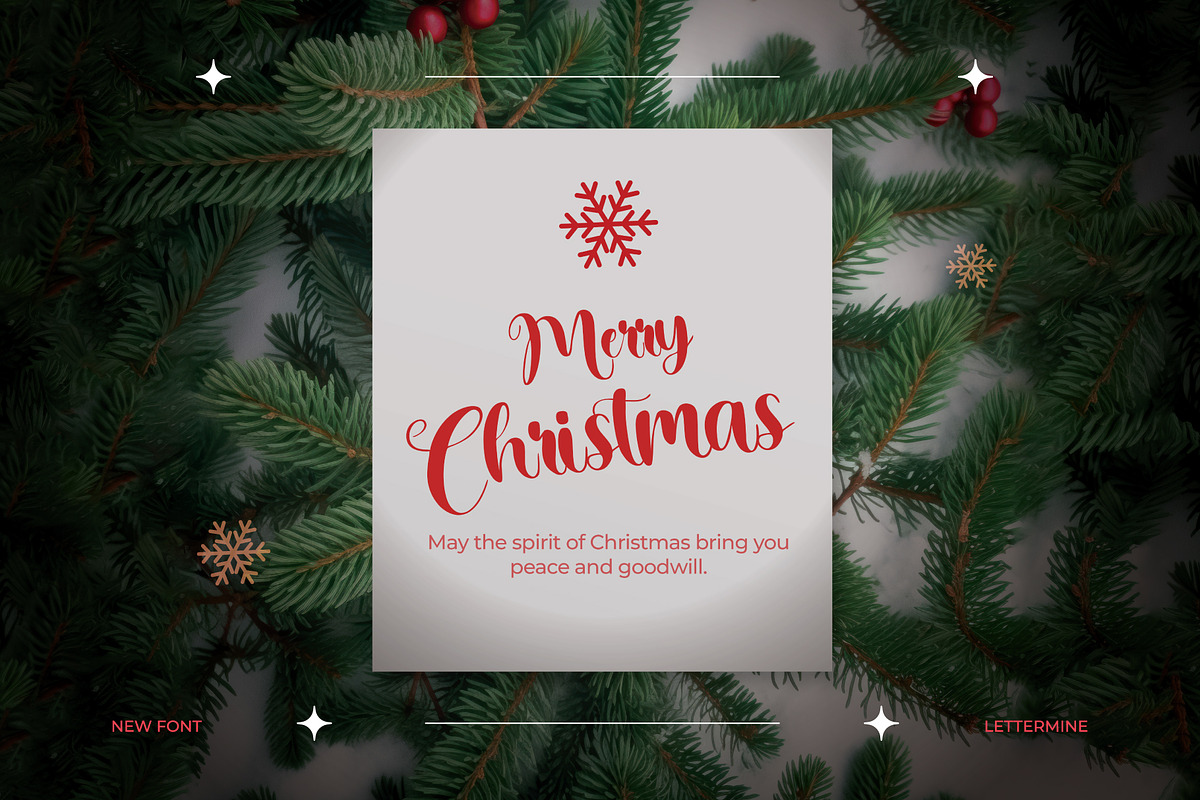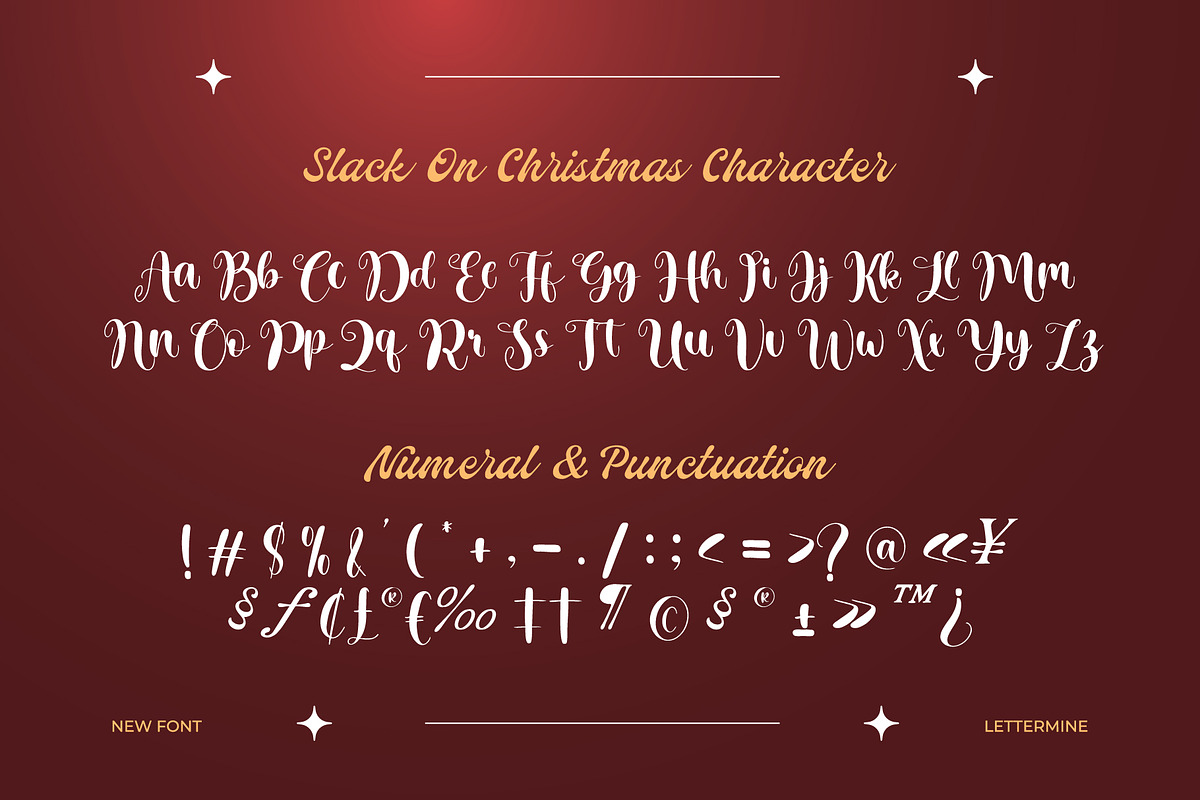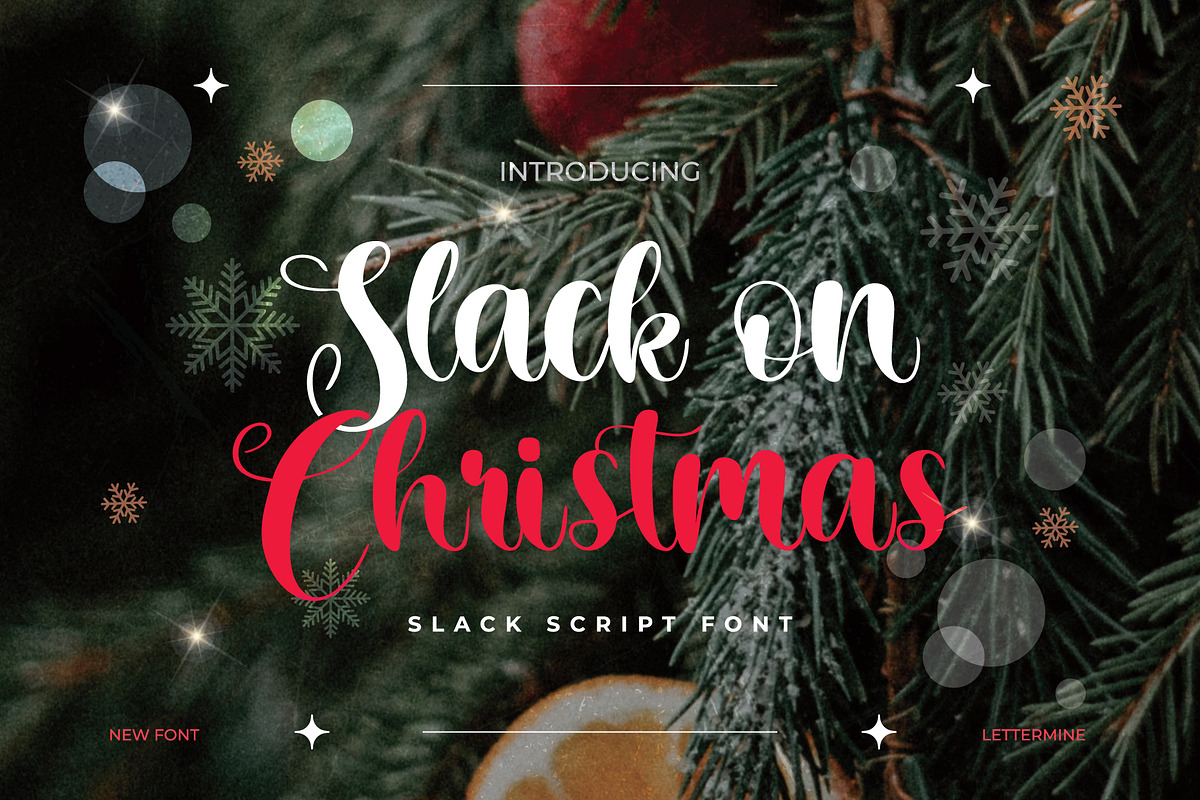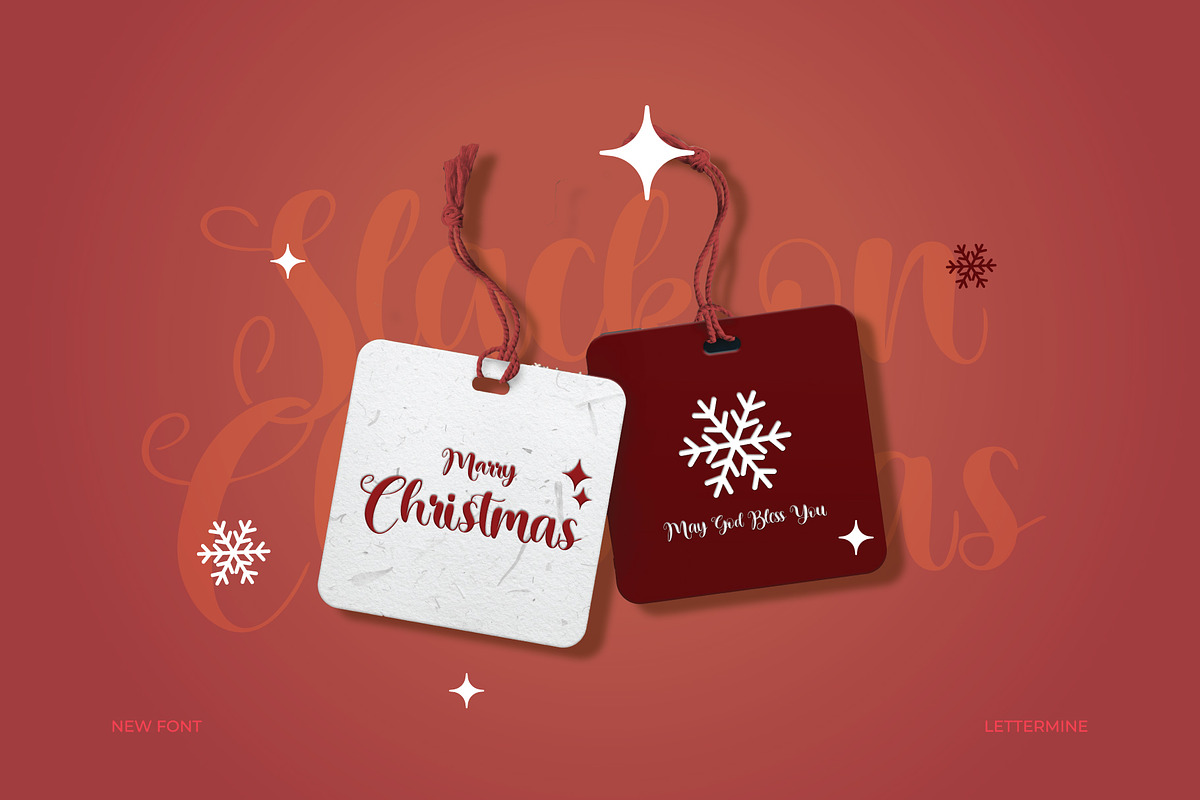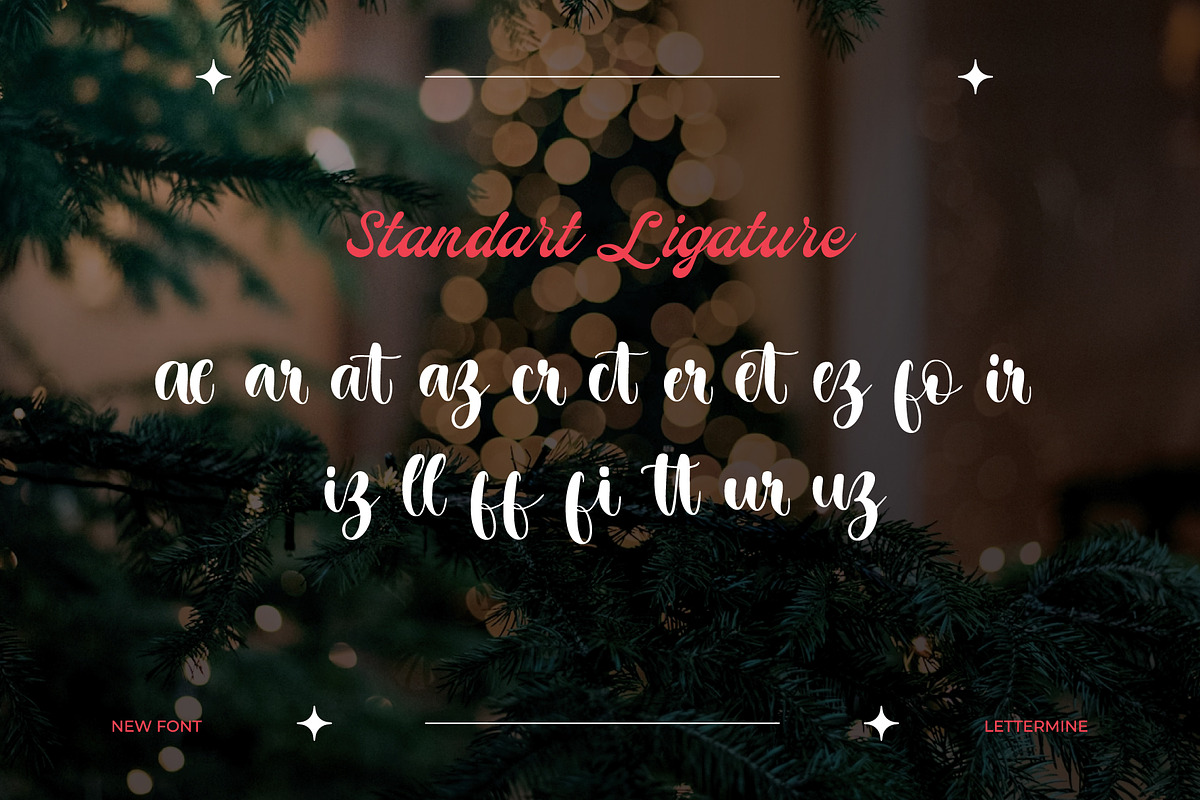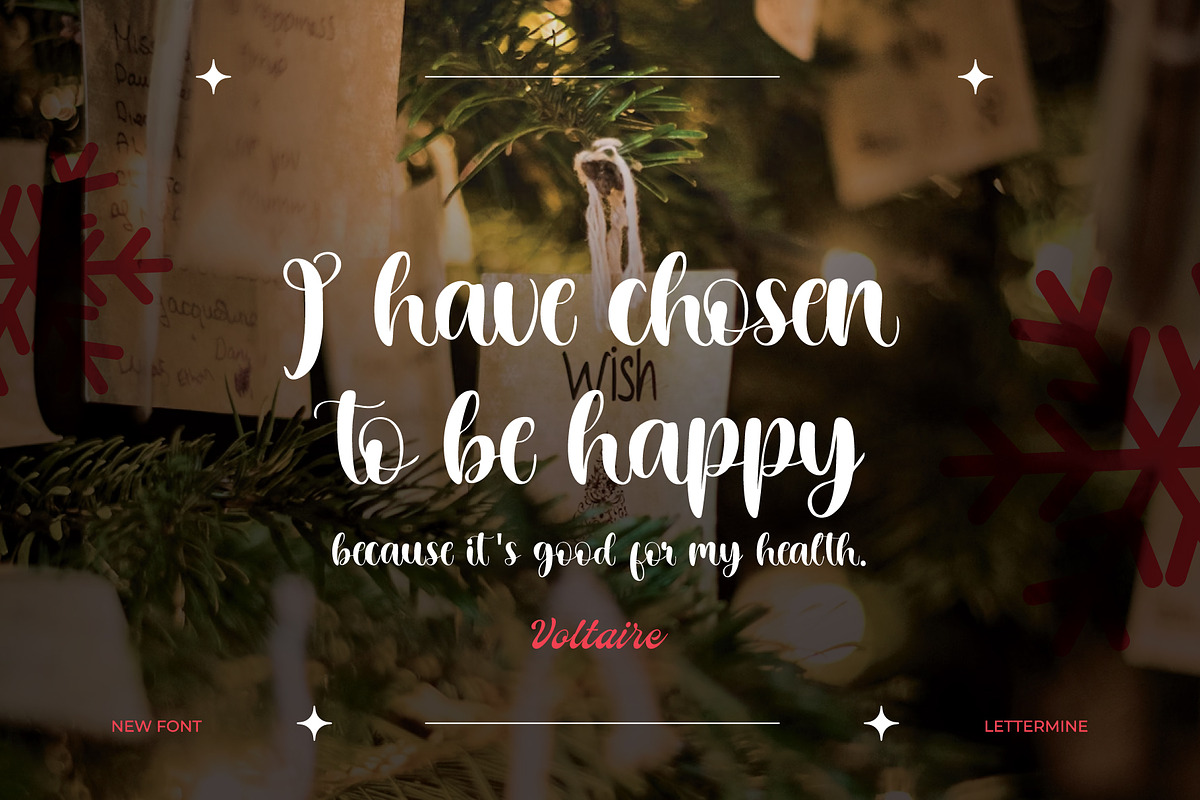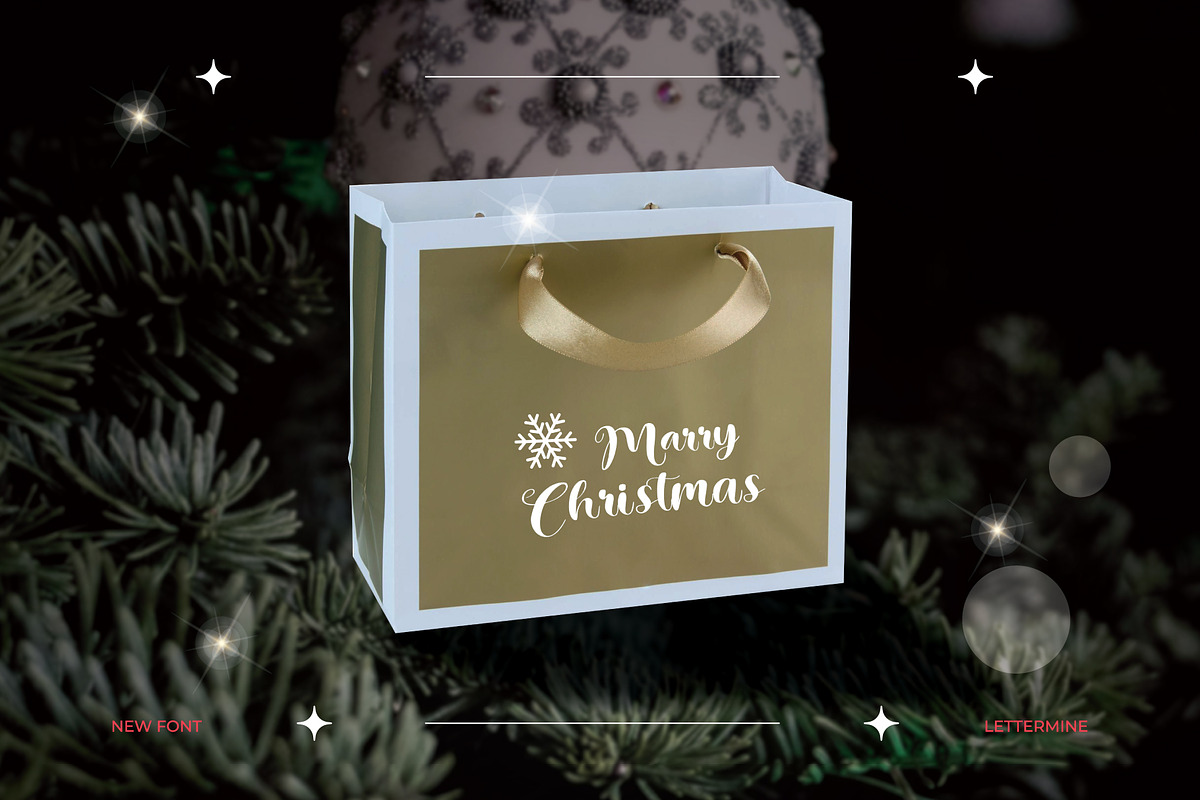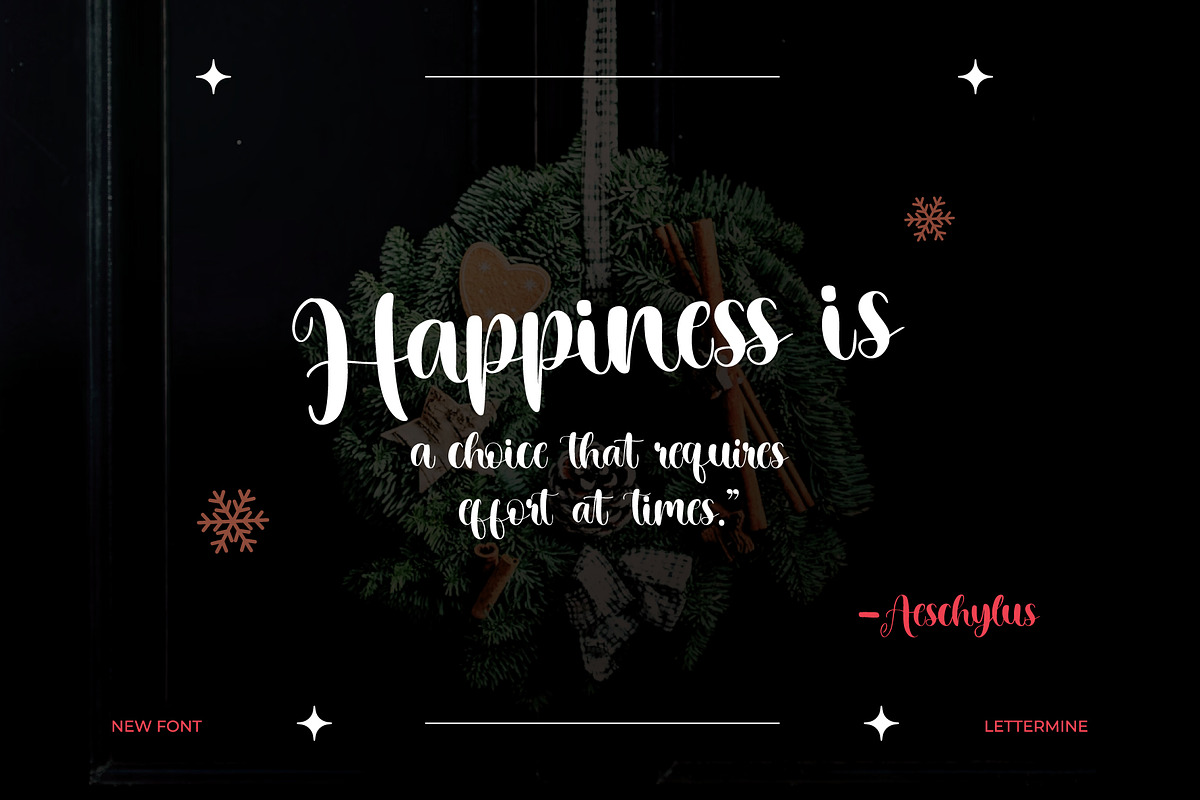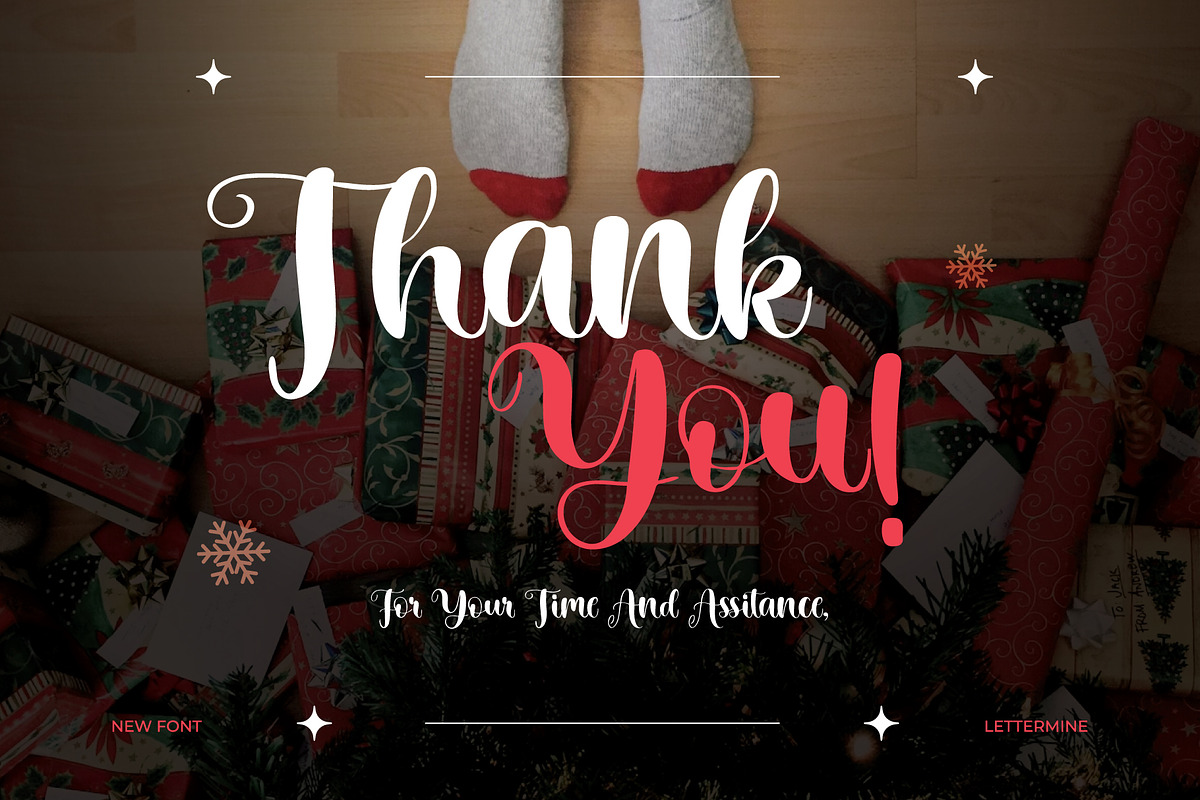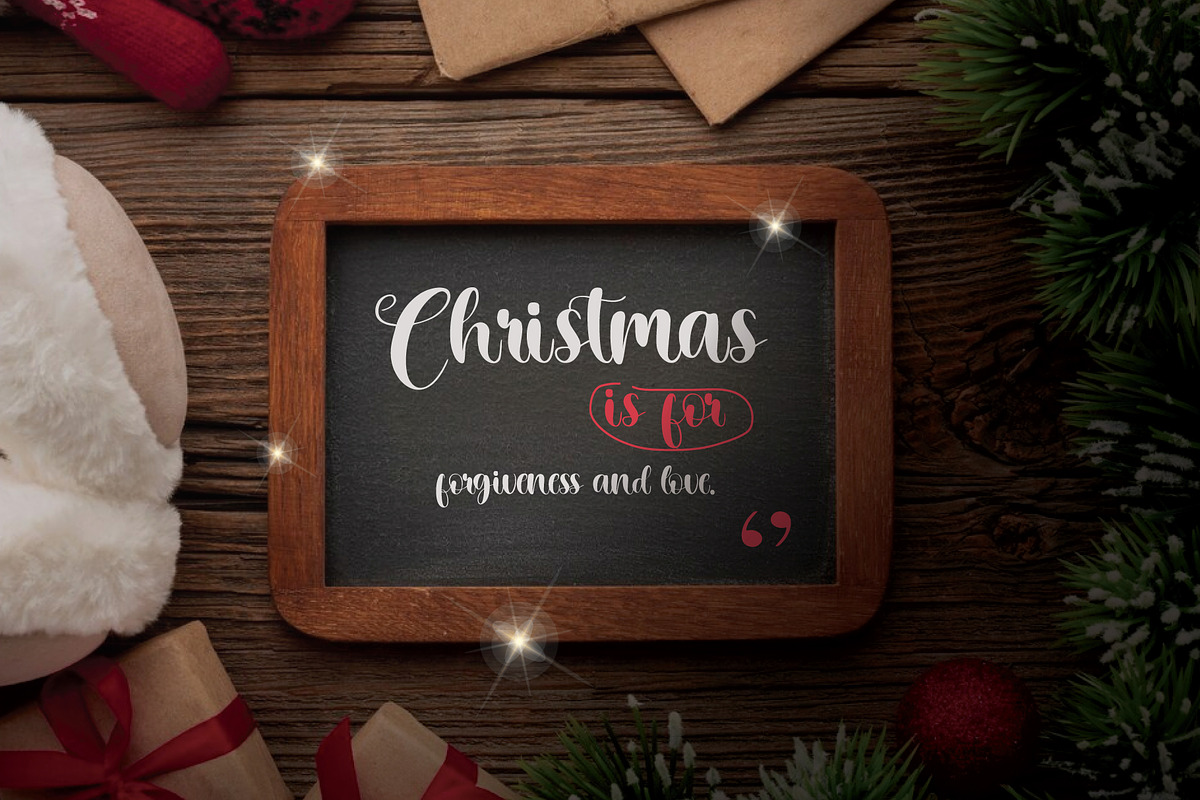
Slack On Christmas - Script
SLACK ON CHRISTMAS Is a beautiful Script Handwritten font, designed to bring warmth and holiday charm to your projects.
- Uppercase & Lowercase Letters
- Holiday greeting cards
- Festive branding
- Invitations
- Seasonal social media posts
- DIY craft projects
Add a joyful and personal touch to your designs with SLACK ON CHRISTMAS!